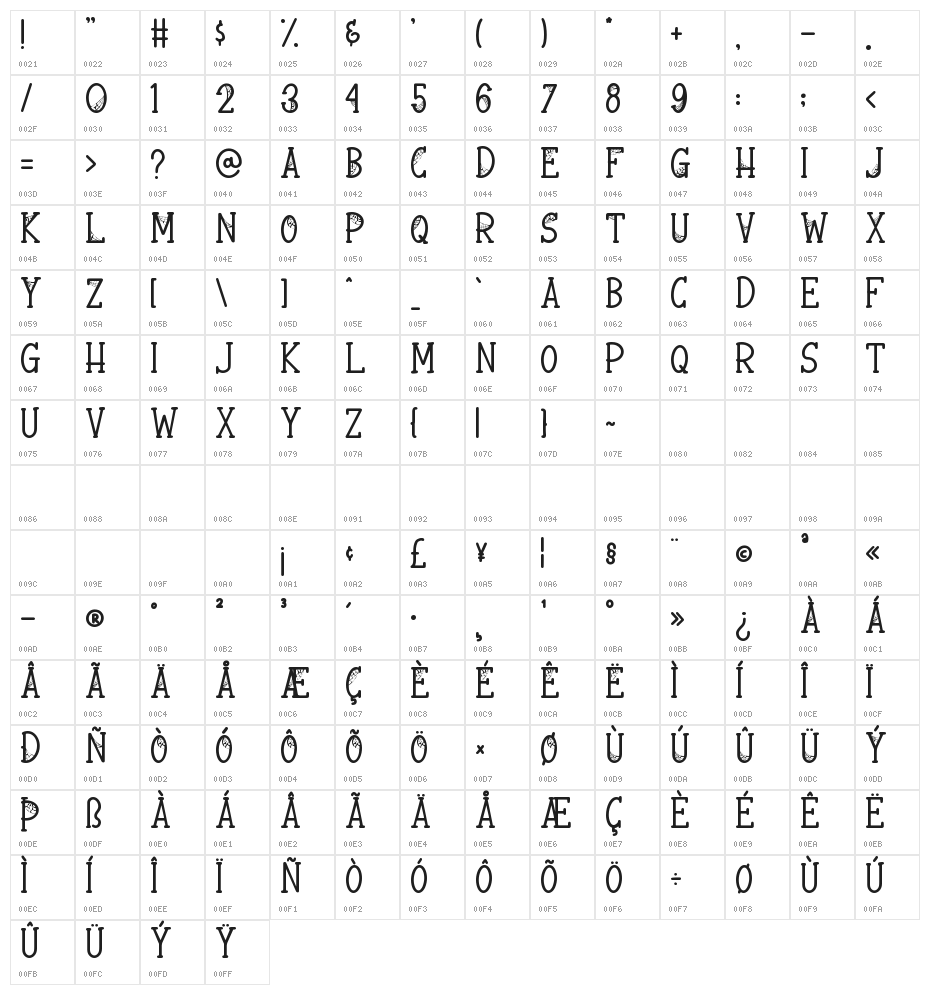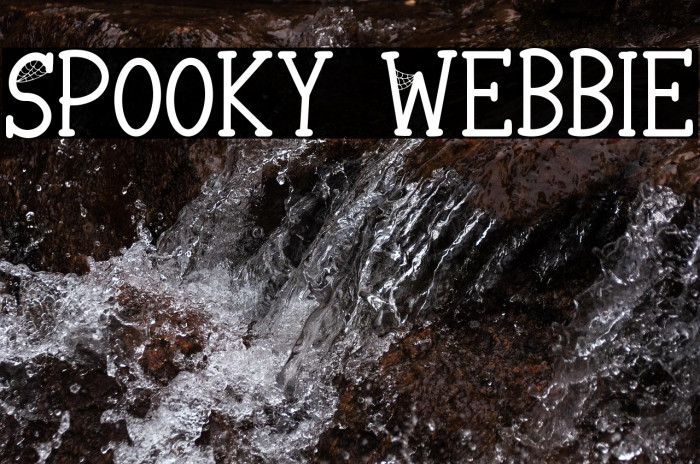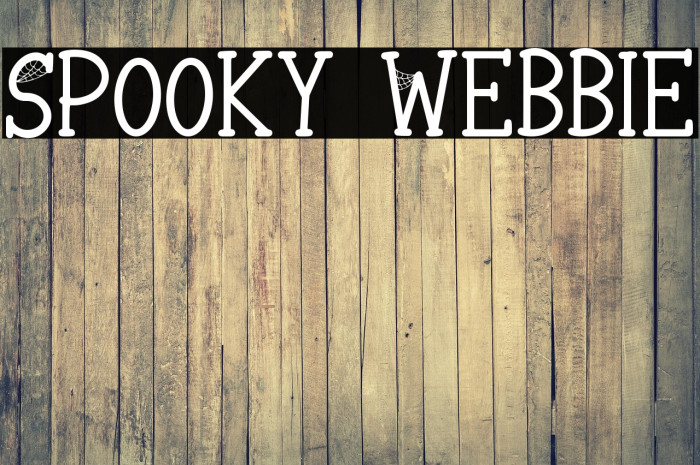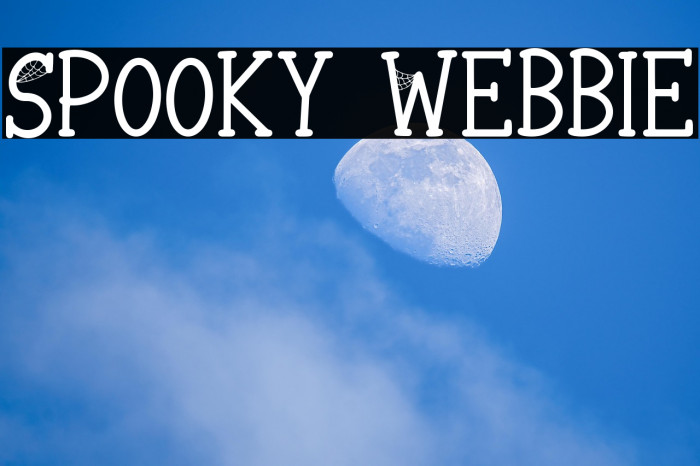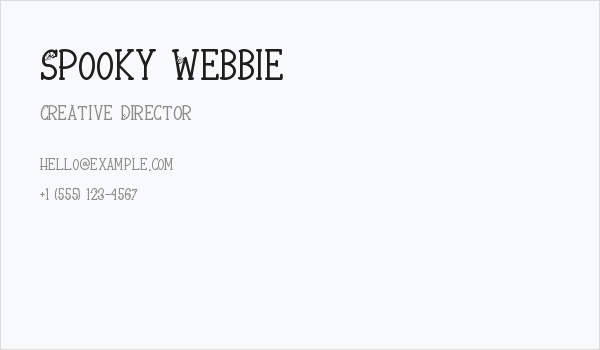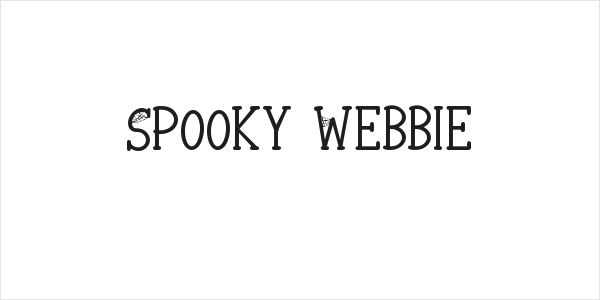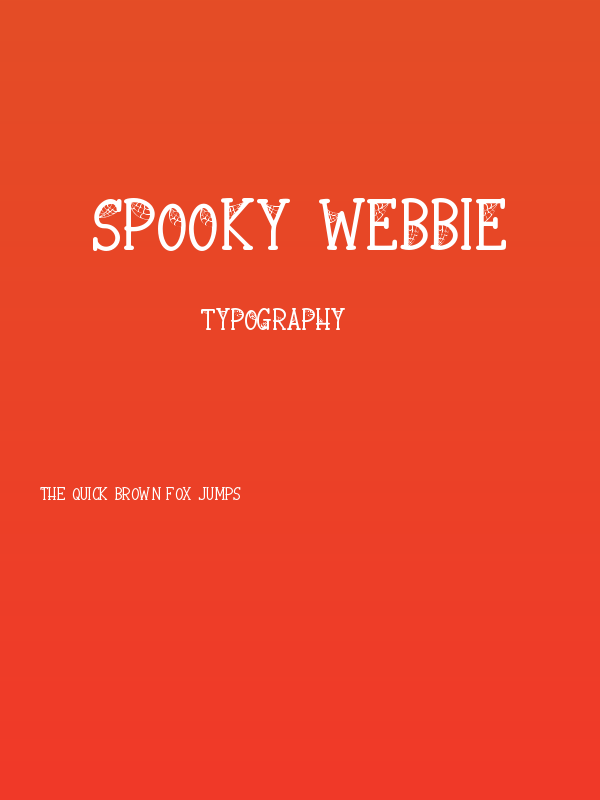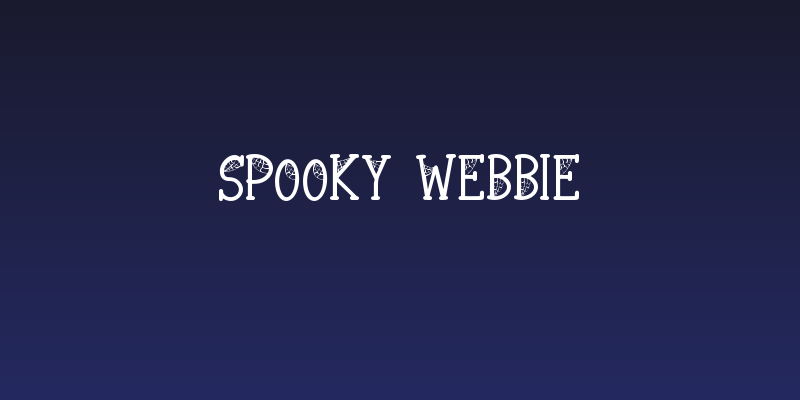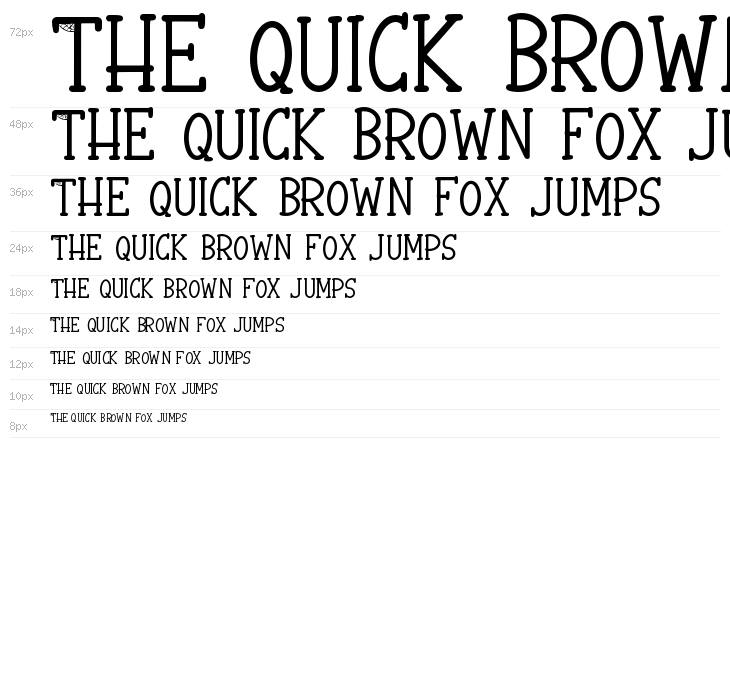
Spooky Webbie Font
Spooky Webbie Description
This font features a playful and spooky design, incorporating cobweb elements into the characters, giving it a Halloween-themed appearance. The letters are bold and slightly rounded, with a whimsical touch that makes them stand out. The cobwebs are intricately woven into the negative spaces of the letters, adding a unique decorative element. The numbers and special characters follow the same theme, ensuring consistency throughout the font. This font is perfect for creating a fun and eerie atmosphere in any project.
| Proposed Projects | Ideal for Halloween invitations, themed party decorations, spooky posters, and children's book covers. |